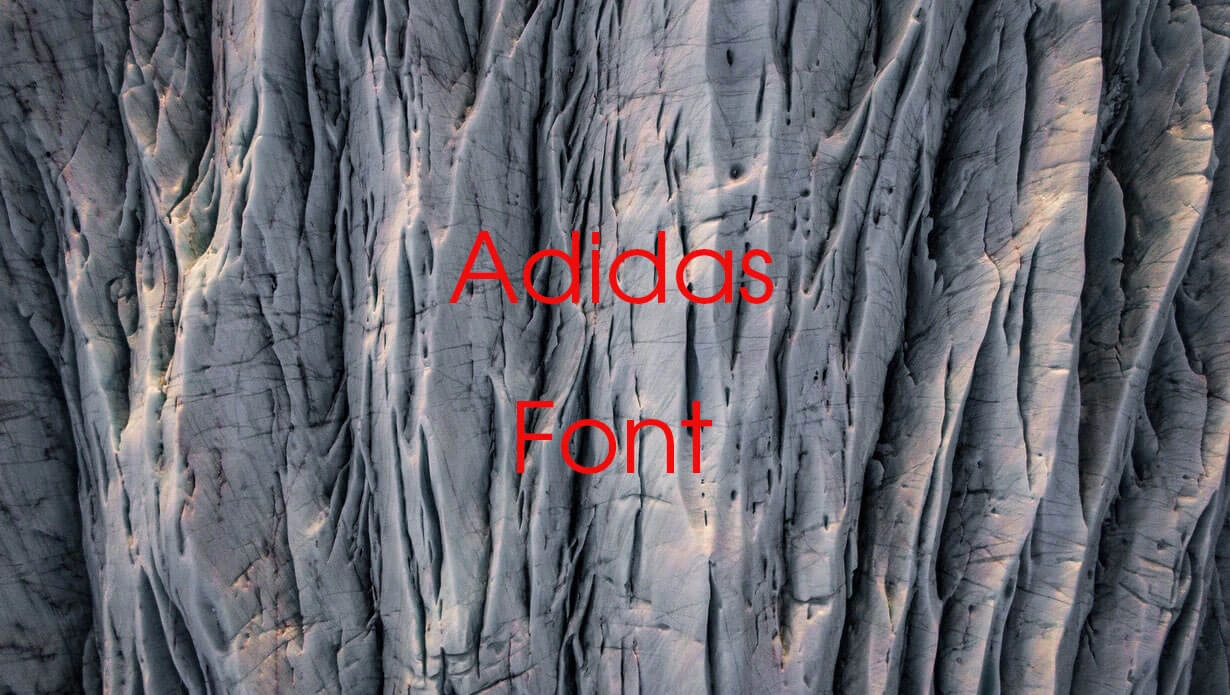
Adidas font is a custom typeface that comprises the font applied on the logo of notable German company Adidas that manufactures shoes and other products worldwide. Besides the popularity of the brand, its font also impressed people everywhere, which is why Adidas font was produced. It is the best option for all types of logos, including brand, games, sports, Animation, etc. After Nike, Adidas enjoyed massive popularity.
If you are looking forward to using similar fonts that would match Adidas font, then go for ITC Avant Garde Gothic as both would be a perfect match. It is the same font that is used by the Adidas brand. Furthermore, you also the choice to create different Adidas font patterns and layouts free of cost with an Adidas font Generator.
Usage of Adidas Font
If you want to make the exact use of this font, it is better to have this font on different logos for which it was specially designed. Apart from using the font in logos, you can use it in headings, designs, websites, banners, printing work, products, branding; it comprises different weight options to make it flexible, including bold, semibold, regular, etc.
Name | Adidas Font |
Style | Display |
Designer | Edward Benguiat, Andre Gürtler |
What Type of Font Is Adidas Font?
Adidas font is a custom-made font that was designed while keeping in mind the famous font used on the Adidas brand. ITC Avant Garde Gothic is the font used on the logo of Adidas. Both have many points in common and are similar to each other.
What Font Is the Adidas Originals Logo?
The original font used on the logo of this popular brand is ITC Avant Garde Gothic Std Demi that is similar to Avenir Next Font.